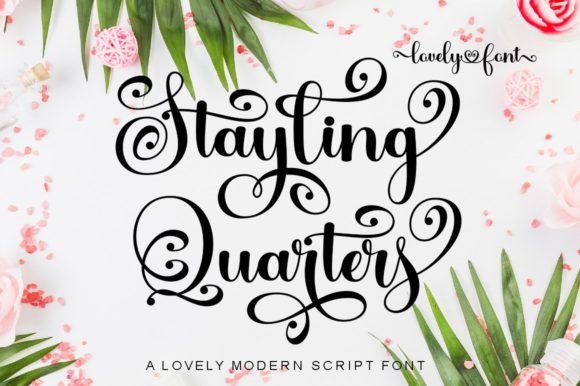
About Stayling Quarters Font
“Stayling Quarters” is a romantic and sweet calligraphy typeface that brings a touch of luxury to your design projects. The characters in this font appear to dance along the baseline, adding a graceful and elegant quality to the overall aesthetic. With its romantic charm, “Stayling Quarters” is poised to enhance the beauty of any design project you wish to create.
This calligraphy typeface is not only visually appealing but also functionally versatile. “Stayling Quarters” is PUA encoded, which means you can effortlessly access a wide array of amazing glyphs and ligatures. This encoding feature allows for seamless integration of various design elements, offering you a rich set of creative possibilities.
Consider using “Stayling Quarters” when you want to infuse a romantic and luxurious spark into your designs. Whether it’s for wedding invitations, elegant logos, or any other project that calls for a touch of sophistication, this font provides the grace and style to make your creations stand out.
In essence, “Stayling Quarters” is more than just a font; it’s a refined tool that adds a romantic and luxurious dimension to your creative projects. With its PUA encoding, accessing the diverse range of glyphs and ligatures becomes a simple and enjoyable process, allowing you to bring a touch of elegance to your design work.